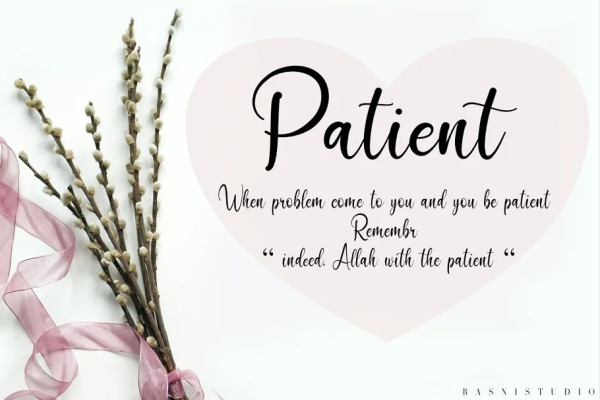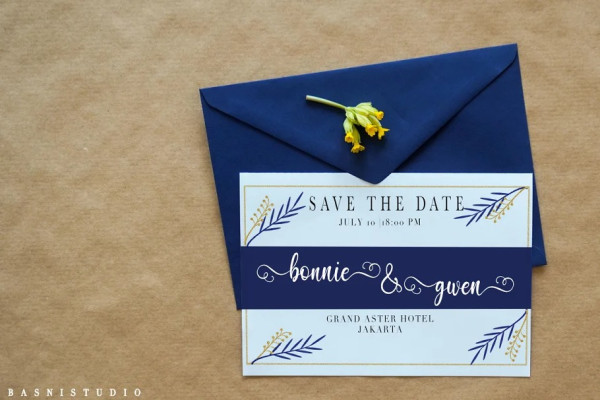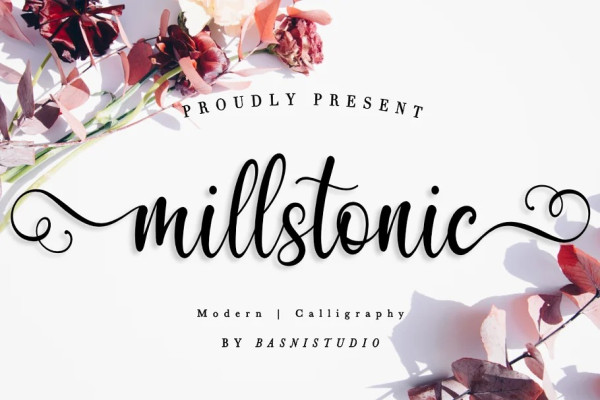
Millstonic Font
Millstonic Font is Aesthetic & Modern Calligraphy font, made with details and precision, perfect for branding, websites, design invitation, and editorial designs. Includes all upper and lower case letters, multilingual support, punctuation, binding & Swashes. everything can be easily accessed using software that supports OpenType.